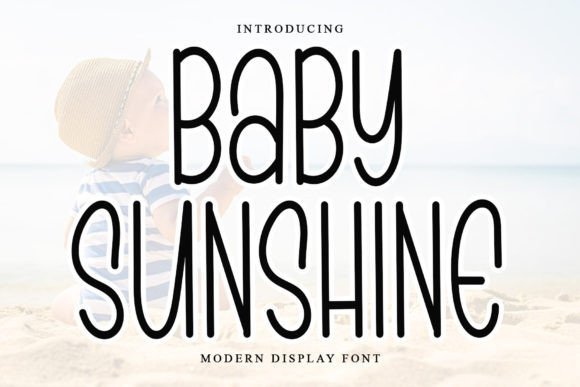
The Perfect Touch of Whimsy: Baby Sunshine Font
Have you ever stared at a blank canvas, waiting for that perfect spark to ignite your creativity? We’ve all been there – that moment when the world seems to freeze, and all you can think about is bringing your vision to life. For designers, this moment is what drives us to push the boundaries of our craft. And what better way to capture that magic than with the perfect font?
Enter Baby Sunshine Font, a delightful handwritten font that combines elegance with a playful touch. Whether you’re crafting a post for Instagram or adding a personal touch to your DIY projects, this font is the perfect companion for your creative journey. With its versatility and charm, Baby Sunshine Font is an invaluable asset for designers, adding that special something to any project.
Baby Sunshine Font Key Features
- Font Family: Baby Sunshine, a playful and whimsical sans-serif font.
- Unique Characteristics: The font features rounded edges, gentle curves, and an overall soft appearance, giving it a friendly and approachable feel.
Baby Sunshine Font Review
Overall, I was really excited to dive into the Baby Sunshine Font, but my experience was a mixed bag. Let’s break it down.
- The font’s whimsical and playful vibe is perfect for projects targeting young parents or children’s products.
- The rounded edges and soft curves give it a friendly, approachable feel that’s hard to resist.
- The font family includes a range of weights and styles, offering flexibility for different design applications.
- The font’s legibility can suffer at smaller font sizes or in complex layouts, which might limit its use in certain applications.
- The design feels a bit too cutesy for some audiences, which could be a drawback for more mature or professional projects.
- The font’s character set is not as extensive as some other options, which might cause issues for designers working with non-English languages.
While Baby Sunshine Font is a lovely choice for the right project, its limitations hold it back from being a go-to option for all designers. If you’re working on a project that targets young audiences or needs a friendly, approachable feel, it’s definitely worth considering. However, for more complex or professional projects, you might want to explore other options.
The Baby Sunshine Font is ideal for creating playful and child-friendly designs. Use it for:
- Children’s book covers and illustrations.
- Marketing materials for kids’ products and services.
Alternatives to Baby Sunshine Font
The Great Vibes Font is a beautiful, elegant script font that is perfect for creating a warm and inviting atmosphere. It’s ideal for use in wedding invitations, greeting cards, and other personal correspondence where a touch of elegance is desired.
Compared to Baby Sunshine Font, Great Vibes Font has a more refined and sophisticated look, making it suitable for formal occasions. While Baby Sunshine Font is playful and whimsical, Great Vibes Font is more polished and sophisticated.
The Pacifico Font is a beautiful, modern script font that is perfect for creating a relaxed and casual atmosphere. It’s ideal for use in beach-themed designs, travel brochures, and other projects where a laid-back vibe is desired.
Compared to Baby Sunshine Font, Pacifico Font has a more modern and sleek look, making it suitable for contemporary designs. While Baby Sunshine Font is playful and nostalgic, Pacifico Font is more modern and sophisticated.
The Carolyna Pro Font is a beautiful, elegant script font that is perfect for creating a luxurious and sophisticated atmosphere. It’s ideal for use in high-end branding, advertising, and other projects where a touch of luxury is desired.